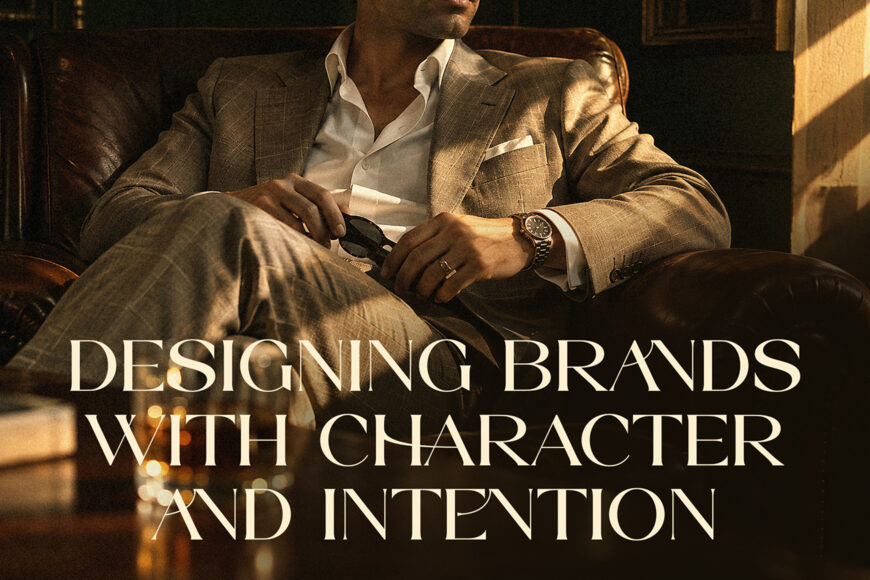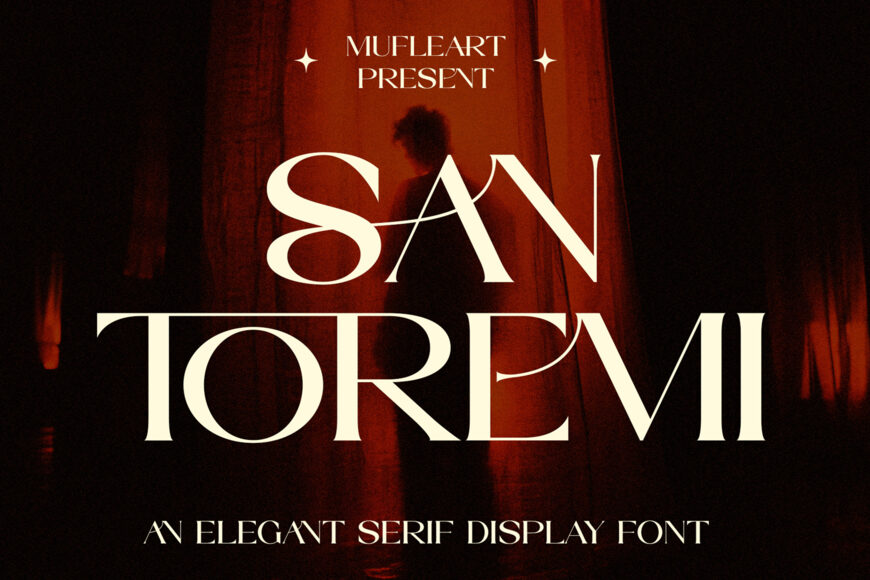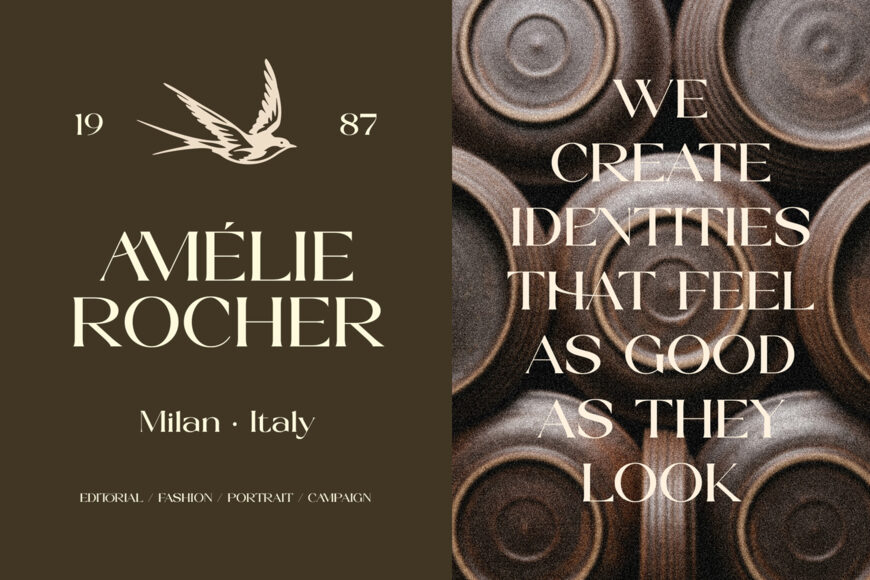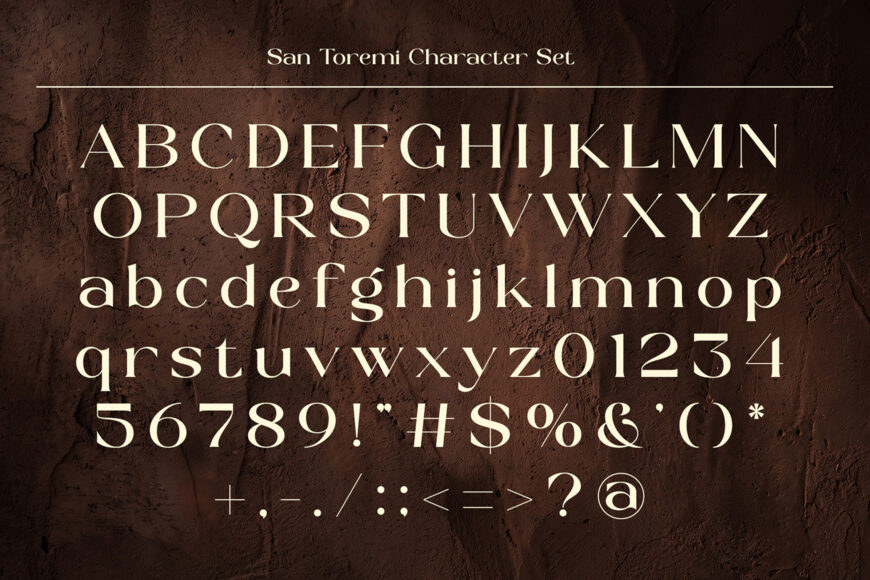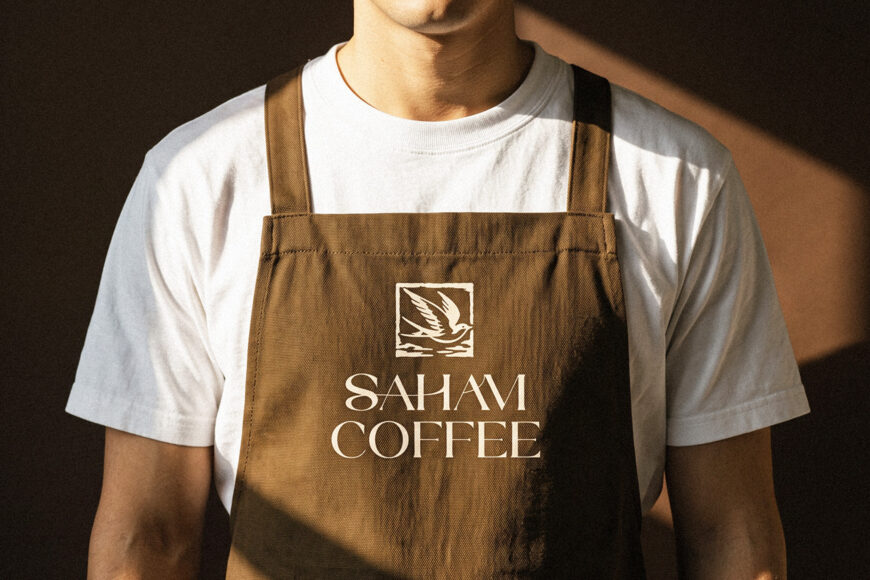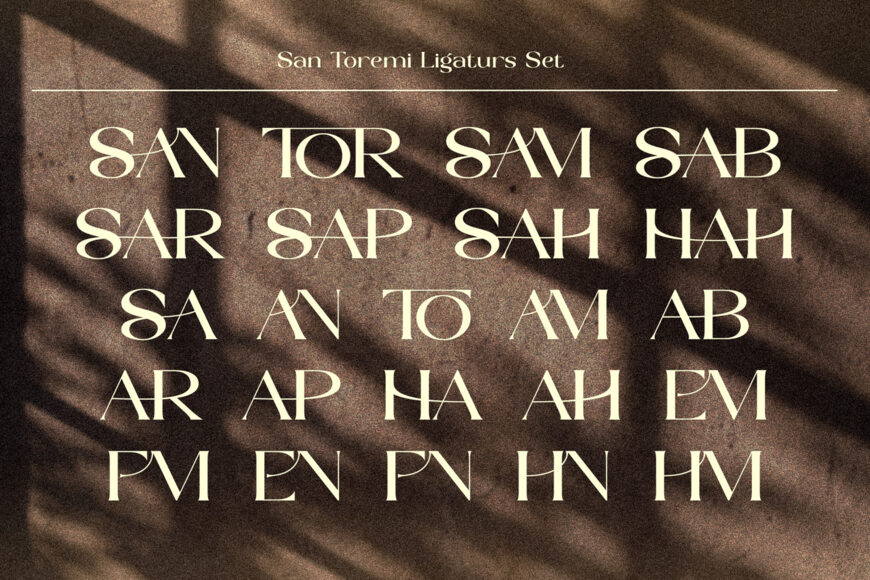
San Toremi Font
San Toremi is a refined and sophisticated serif typeface created for modern brands that value elegance, professionalism, and timeless visual identity. Featuring beautifully balanced serif forms, graceful proportions, and distinctive ligatures, San Toremi brings a premium and confident character to your designs.
Its versatile style makes it an excellent choice for corporate branding, logo design, luxury identities, editorial projects, packaging, advertising, and high-end visual communication. San Toremi is designed to work beautifully across both minimal and sophisticated aesthetics — from an elegant wordmark to a complete brand identity system.